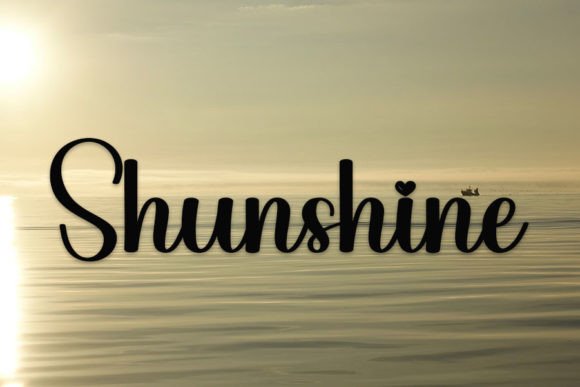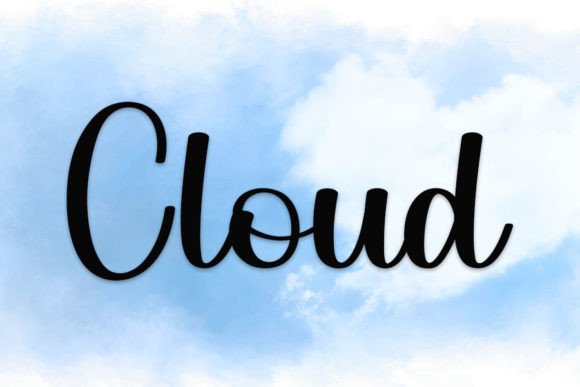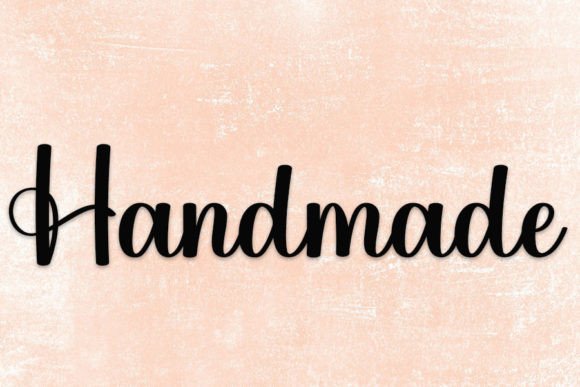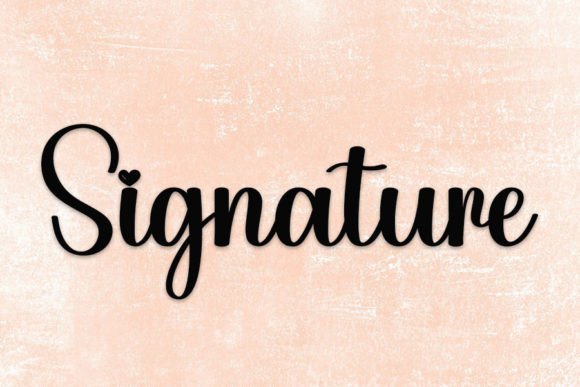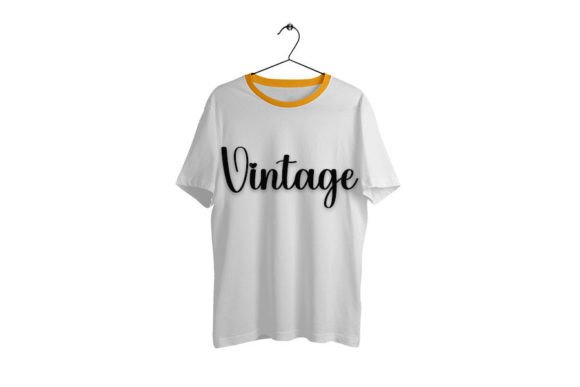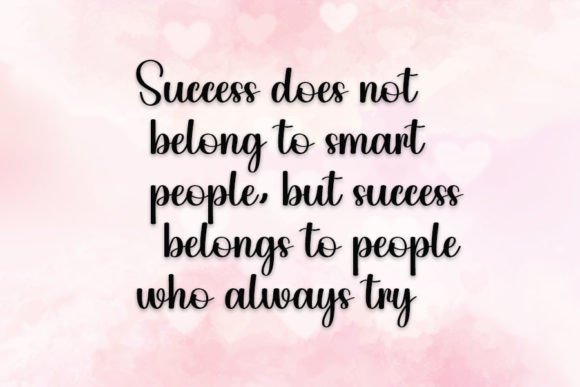
The Magic of Blind Font: A Designer’s New Best Friend
I still remember the project that led me to discover the Blind font. I was working on a branding campaign for a luxury boutique hotel, and I needed a font that would convey elegance, sophistication, and a touch of whimsy. After hours of scouring font libraries and trying out different combinations, I stumbled upon Blind – and it was love at first sight! ✨
An Honest Review: What I Love (and What I Don’t)
So, what makes Blind so special? Here are a few things that I absolutely adore:
• ✨ Elegant and refined: Blind has an unmistakable air of sophistication that’s perfect for high-end branding projects.
• ✅ Highly legible: Despite its ornate feel, Blind remains surprisingly easy to read – even at smaller font sizes.
• 💫 Versatile: This font works beautifully for both headings and body text, making it a great all-around choice.
Of course, no font is perfect, and Blind does have a few quirks:
• ⚠️ Limited availability of certain characters: Some users have reported issues with finding specific glyphs or special characters.
• 🤔 Not ideal for body text in very small sizes: While Blind is generally legible, it can get a bit fuzzy when used in extremely small font sizes (think 8-10pt).
The Story Behind Blind Font: A Designer’s Inspiration
Blind was created by a talented type designer who wanted to craft a font that would evoke the feeling of handwritten elegance. With inspiration from classic calligraphy and modern digital design, Blind was born – a font that’s both timeless and contemporary. While the actual origins of Blind are unclear, its designer likely drew inspiration from a range of artistic sources, including vintage typography and contemporary handwriting.
Q: What type of projects is Blind best suited for?
A: Blind is perfect for luxury branding, high-end packaging, and creative projects that require a touch of elegance. It’s also great for wedding invitations, stationery, and other paper goods.
Q: Does Blind support OpenType features?
A: Yes, Blind supports a range of OpenType features, including glyphs, stylistic alternates, and more. You can access these features in compatible design software like Adobe Creative Cloud.
Q: Is Blind easy to read?
A: Yes, despite its ornate feel, Blind remains surprisingly easy to read – even at smaller font sizes. However, it’s best used in larger sizes (18pt+) for optimal legibility.